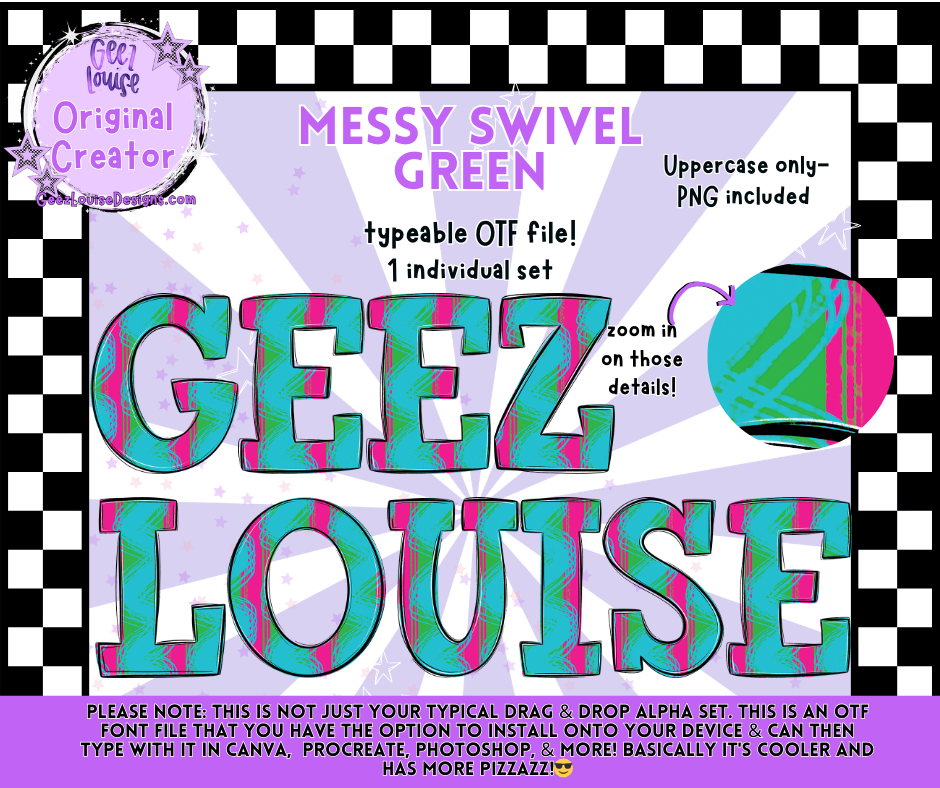
MESSY SWIVEL GREEN — Typeable OTF Alpha Font + PNGs
Playful, artsy, and full of movement — Messy Swivel Green brings a hand‑drawn, swirly, mixed‑pattern vibe that instantly elevates any design. With its bold textures and colorful details, this typeable OTF font is perfect for creators who love expressive, whimsical lettering.
Mixed‑pattern swirl textures
Crisp, print‑ready detailing